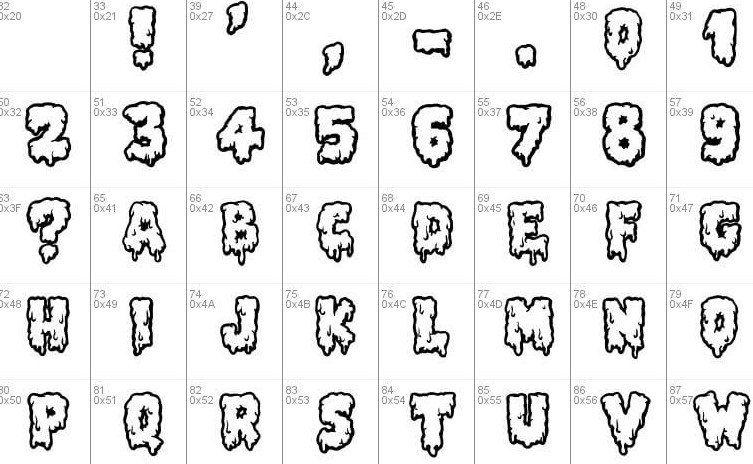
We are excited to share the Lethal Slime Font with you, a horror typeface created by Images. This font is available in both ttf and otf formats, making it easy to download and install on any computer.
The designer did his best in making the font more stylish and solid. The font contains features that can easily be used in all types of projects. If you have a big project that required such type of comic then this font for you.
There are so many users of this font who loved this great typeface too much. You can designs anything easily and efficiently without have to worry about the designs and look. After completing any designs you will get your design product.
Before scroll down, lets see the example of this typeface that is best for pairing with thirsty script which we provided by showing all the characters and glyphs contains in this font.